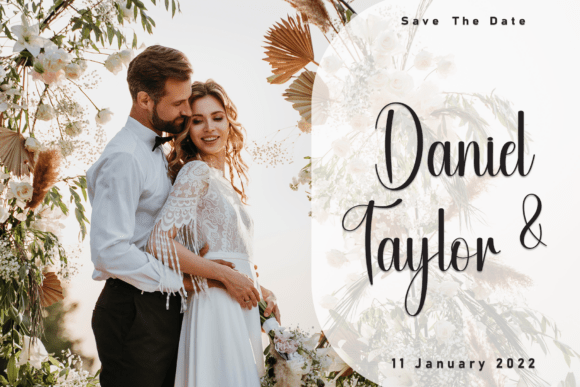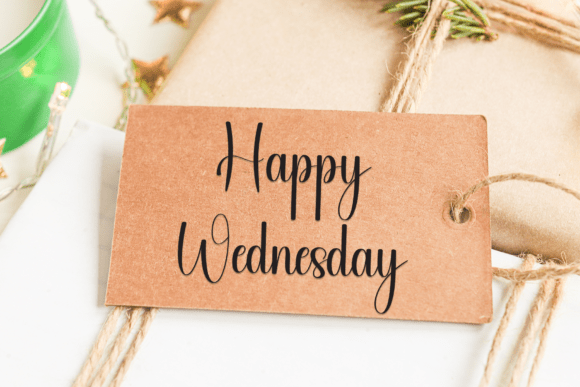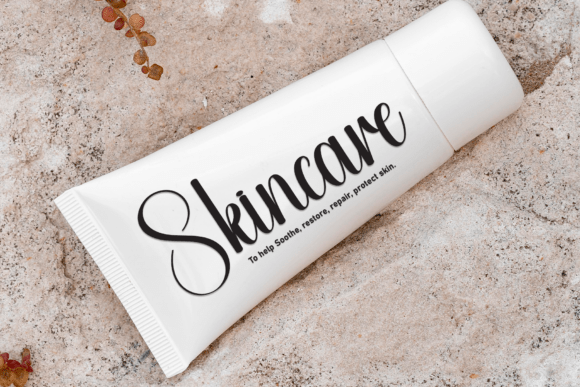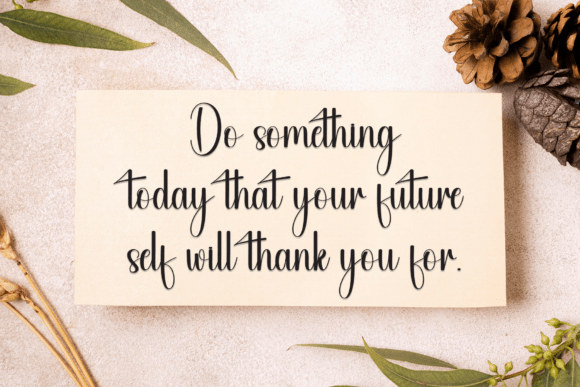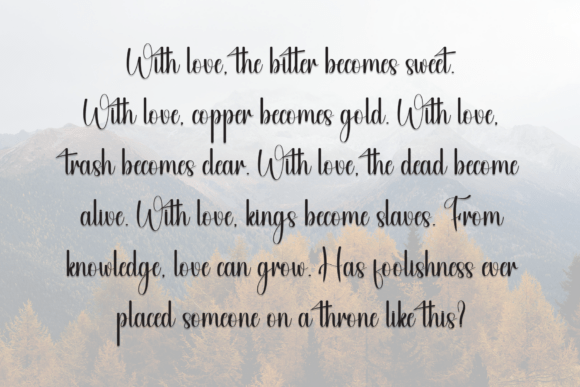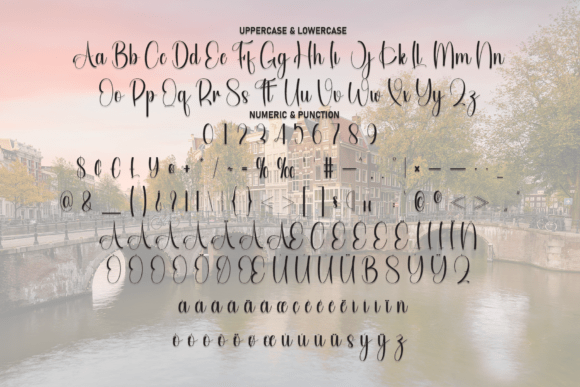
The Amsterdam Font: Elevate Your Designs with Elegance
I’ll never forget the design project that led me to discover the Amsterdam font. I was working on a luxury travel brochure, and my client wanted a sophisticated, high-end look that would make their brand stand out. I spent hours scouring font libraries, but nothing seemed quite right – until I stumbled upon Amsterdam. Its elegant, rhythmic script and high-contrast visual rhythm instantly won me over. I knew I’d found the perfect fit for my project, and I’m excited to share its beauty with you.
An Honest Review of Amsterdam Font
• ✨ Elegant and sophisticated design: Amsterdam’s thick, grounded downstrokes and delicate hairline connectors create a stunning visual rhythm that’s perfect for luxury branding.
• ✅ High-contrast visual rhythm: The font’s unique contrast between thick and thin lines adds depth and visual interest to any design.
• 💫 Versatile and adaptable: Amsterdam works beautifully for a range of applications, from boutique hospitality logos to upscale lifestyle editorial titles.
While Amsterdam is an exceptional font, there are a few things to keep in mind:
• ⚠️ Legibility at small sizes: Like many script fonts, Amsterdam can be tricky to read at very small sizes. Make sure to test it in your design to ensure it’s legible.
• 🤔 Glyph coverage: While Amsterdam has a wide range of glyphs, it may not have every special character you need. Be sure to review the font’s documentation to ensure it covers your requirements.
3. Experiment with OpenType features like ligatures and stylistic alternates to add visual interest to your text.
The Story Behind Amsterdam Font
Amsterdam was designed by a team of typographers who wanted to create a font that embodied the elegance and sophistication of the Dutch capital. Inspired by the city’s rich history, stunning architecture, and vibrant cultural scene, they crafted a font that’s both refined and creative. The result is a truly unique typeface that’s perfect for designers looking to add a touch of luxury to their work.
What makes Amsterdam font unique? Amsterdam’s high-contrast visual rhythm, thick downstrokes, and delicate hairline connectors create a distinctive, elegant look that’s perfect for luxury branding.
Is Amsterdam suitable for body text? While Amsterdam is stunning for headlines and titles, its script design may not be the best choice for lengthy body text. Consider using a clearer font for reading-heavy content.
Does Amsterdam support OpenType features? Yes, Amsterdam supports OpenType features like ligatures, stylistic alternates, and glyphs, giving you greater creative control over your typography.